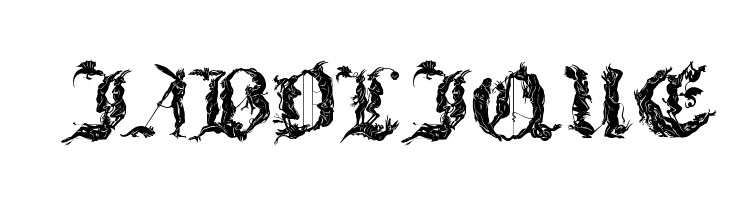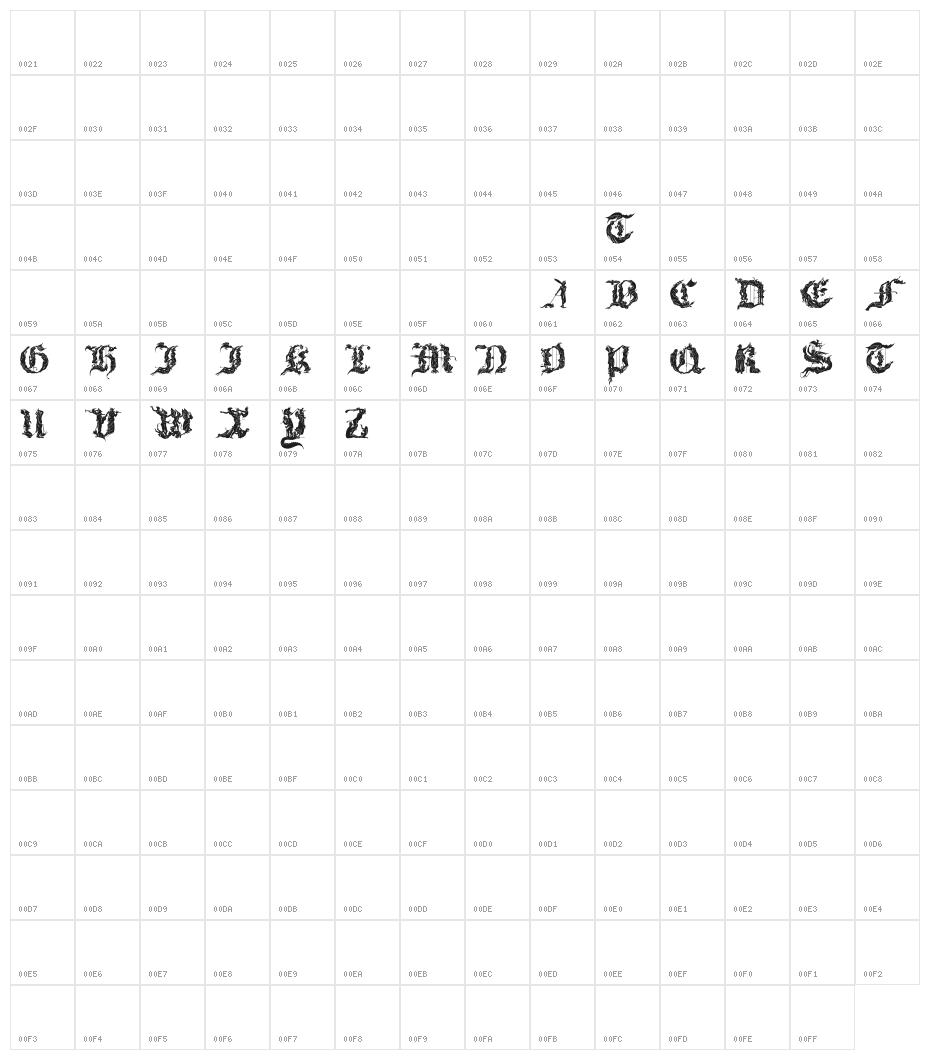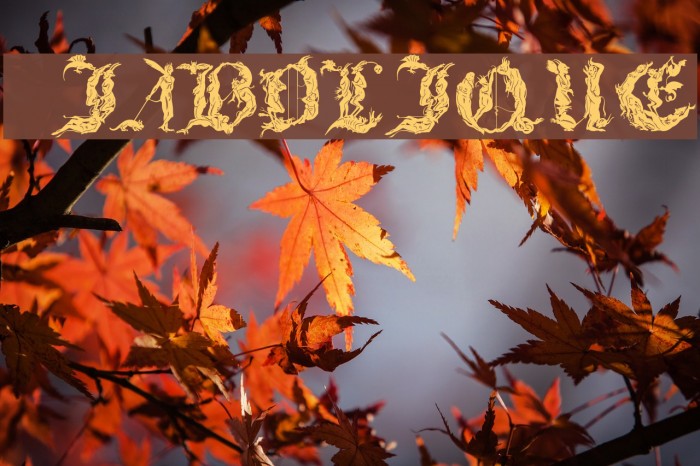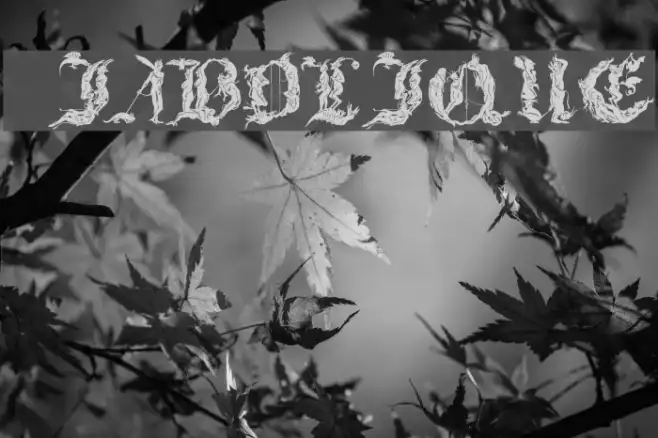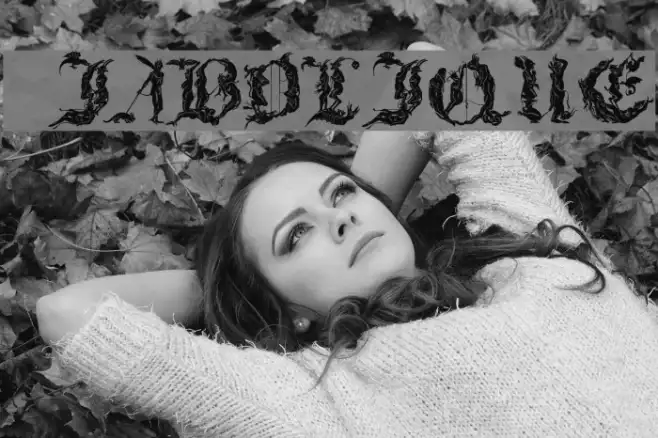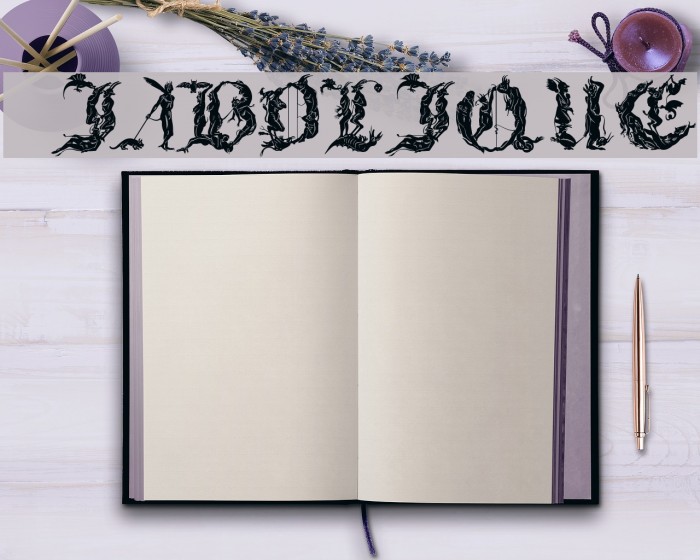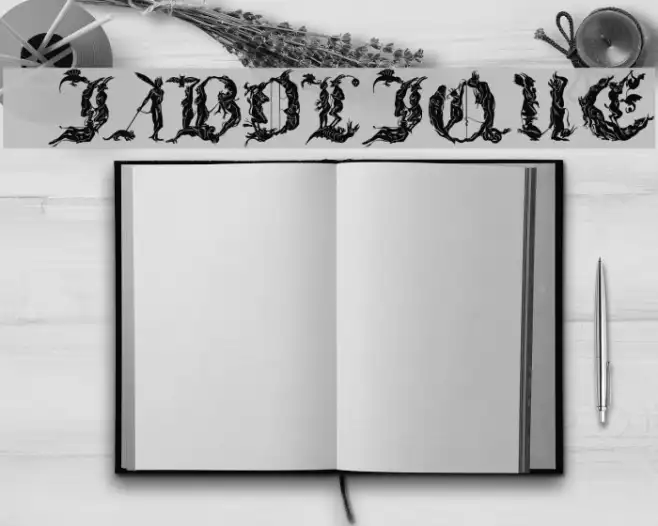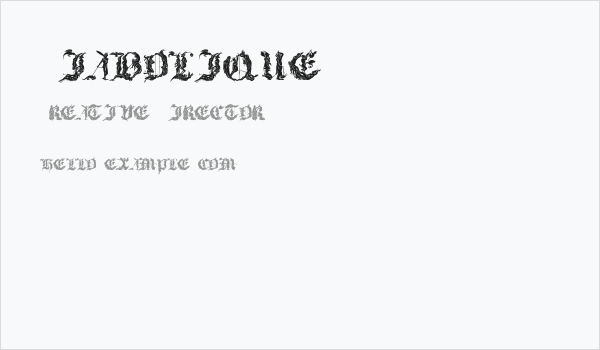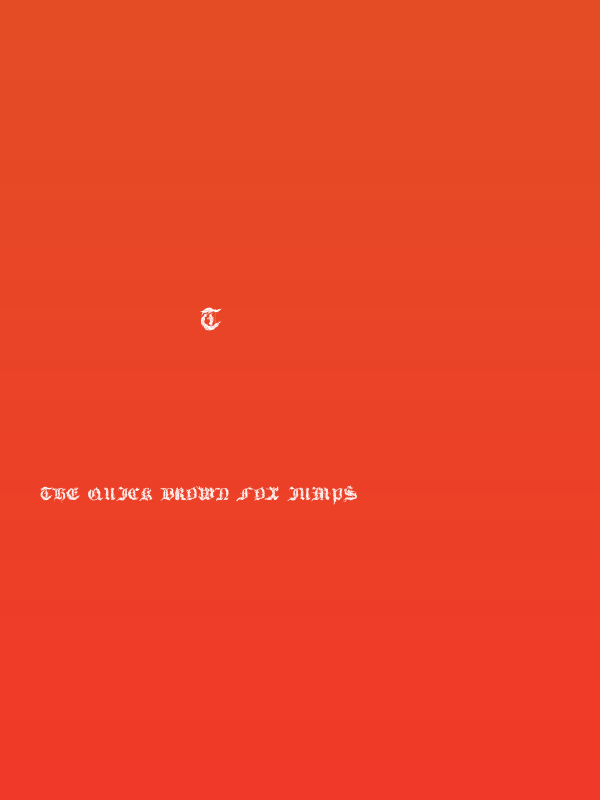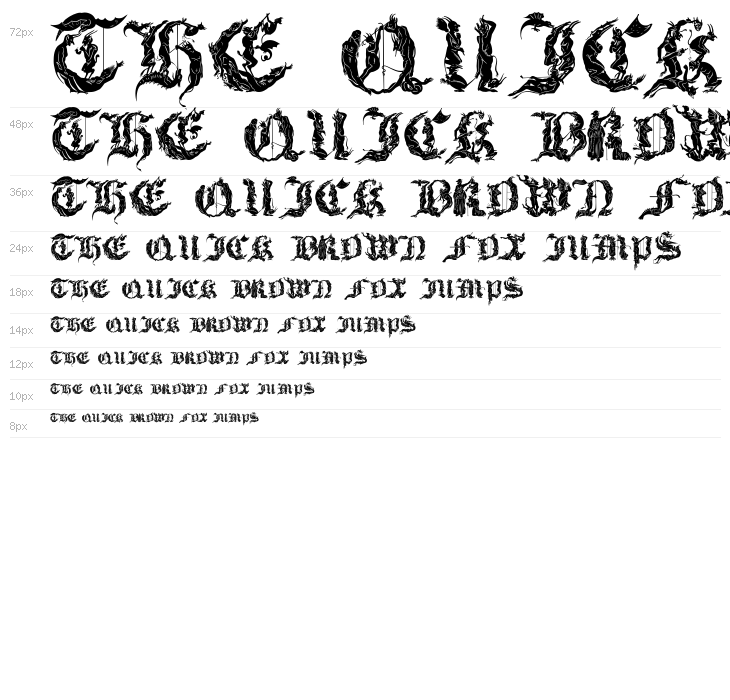
Diabolique Font
Diabolique Description
This font features an intricate and ornate design, reminiscent of gothic and medieval styles. Each character is adorned with elaborate flourishes and decorative elements, creating a sense of mystery and elegance. The strokes are bold and dramatic, with high contrast between thick and thin lines, enhancing the font's visual impact. The overall appearance is both artistic and theatrical, making it suitable for projects that require a touch of drama and sophistication.
| Overall Style | Gothic, Decorative |
| Proposed Projects | Ideal for use in horror-themed designs, gothic event invitations, album covers, and fantasy book titles. |